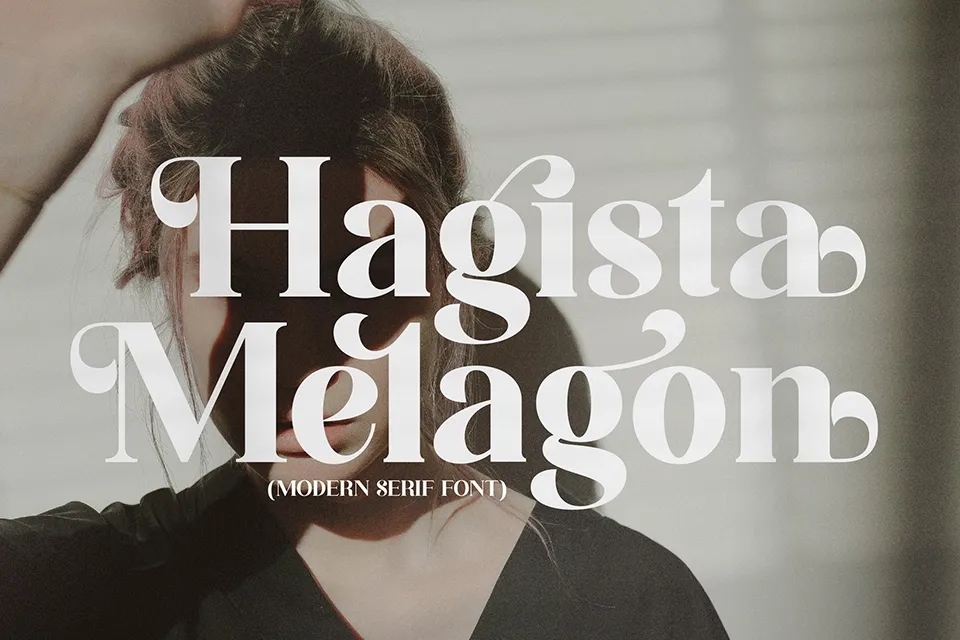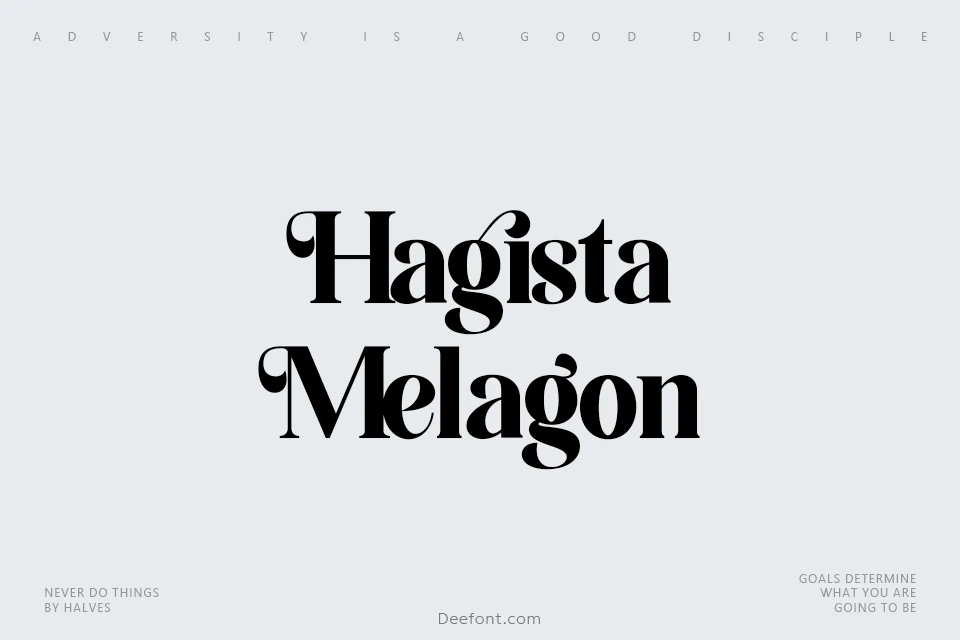
Hagista Melagon Font
Hagista Melagon Font font is a modern and classic serif typeface that features a unique, elegant style with contemporary appeal. Its refined curves and stylish details make it ideal for sophisticated branding, editorial design, and creative projects that require a touch of luxury and modernity.